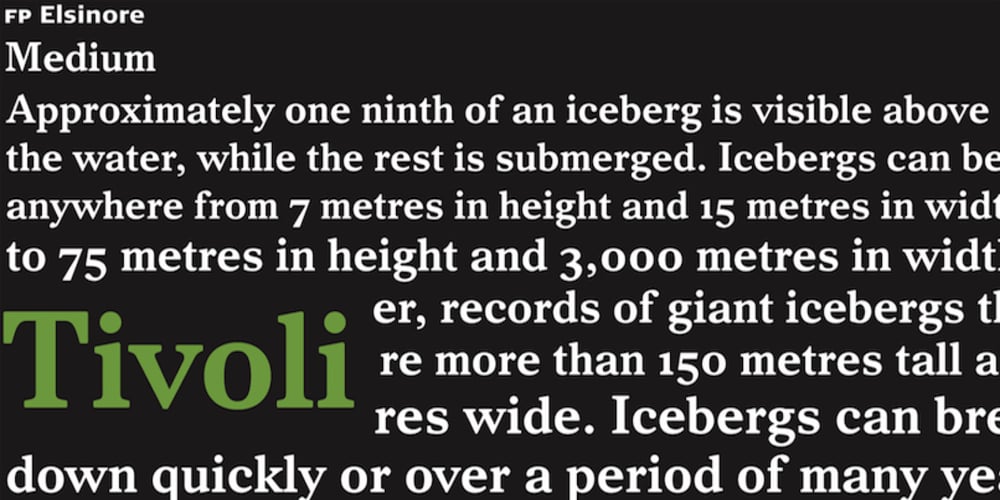
FP Elsinore Font Family was designed by Ole Berntsen Søndergaard and published by Fontpartners. FP Elsinore contains 2 styles and family package options. FP Elsinore was custom made for street name signs in the city of Elsinore. The font has a straightforward and very classic expression, that blends harmoniously with the architecture of this old coastal city. The corners are gently rounded, because the font is mainly used in signage.